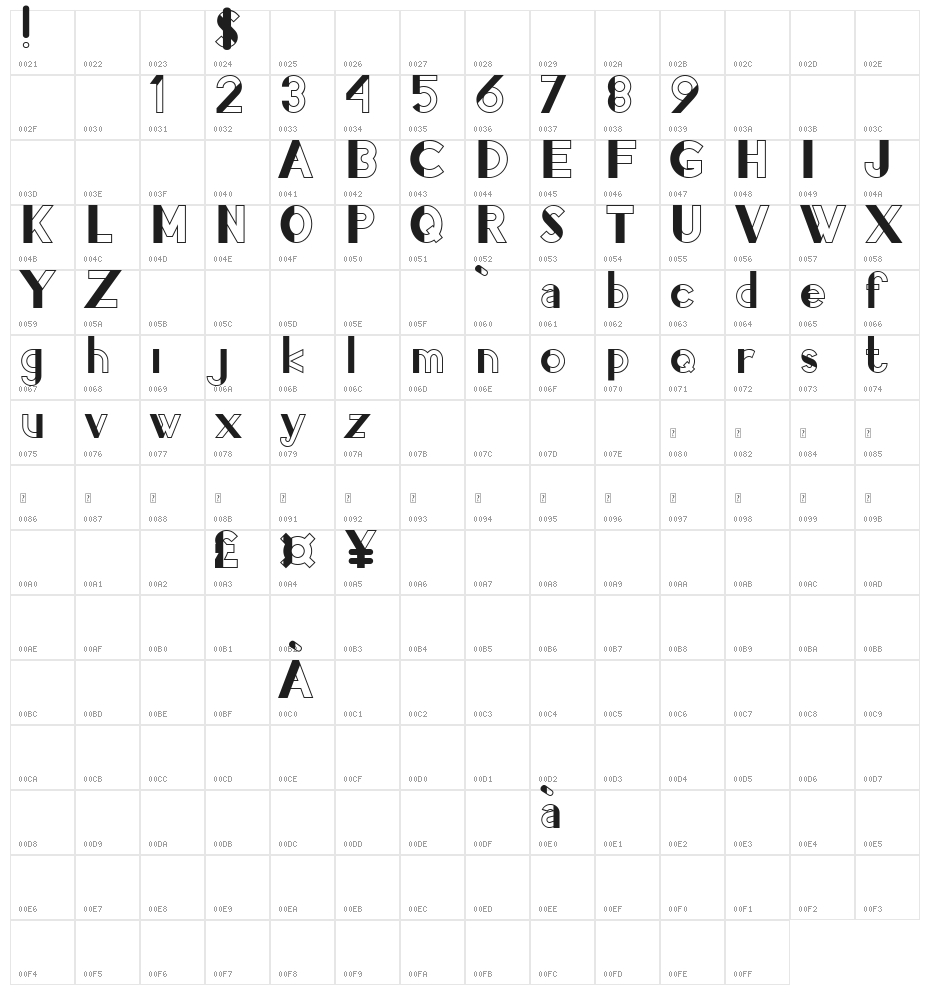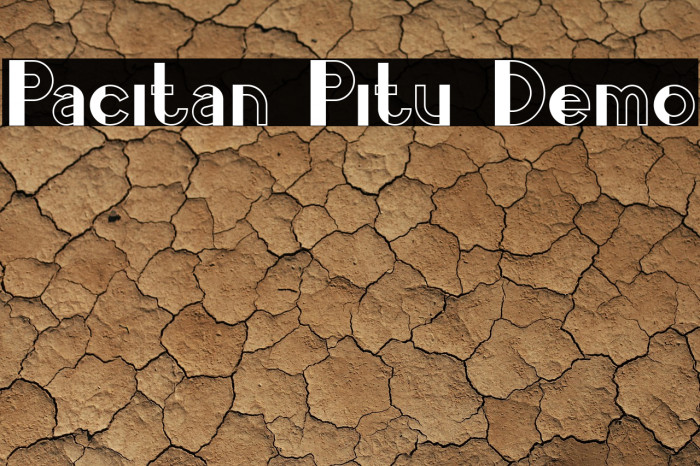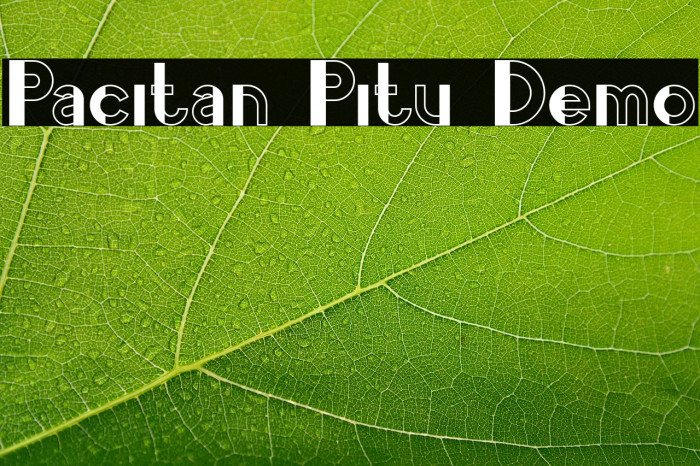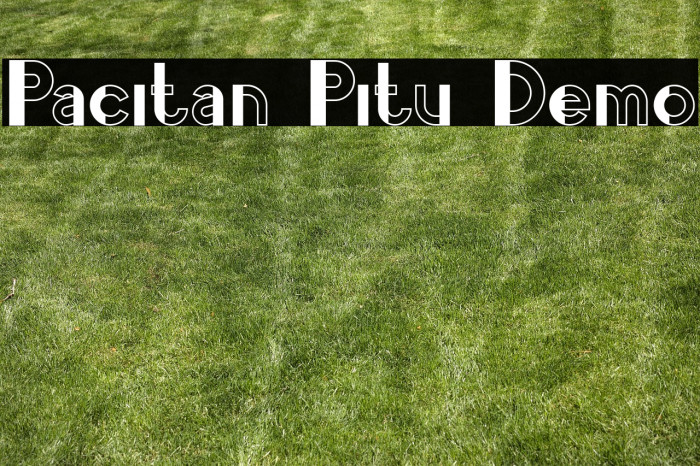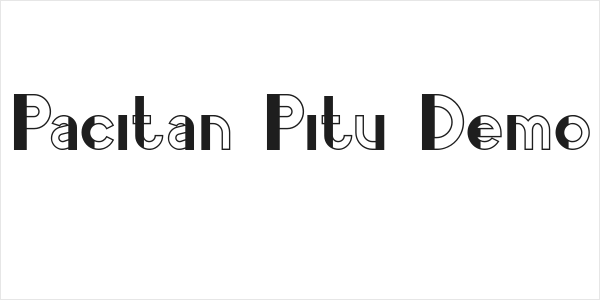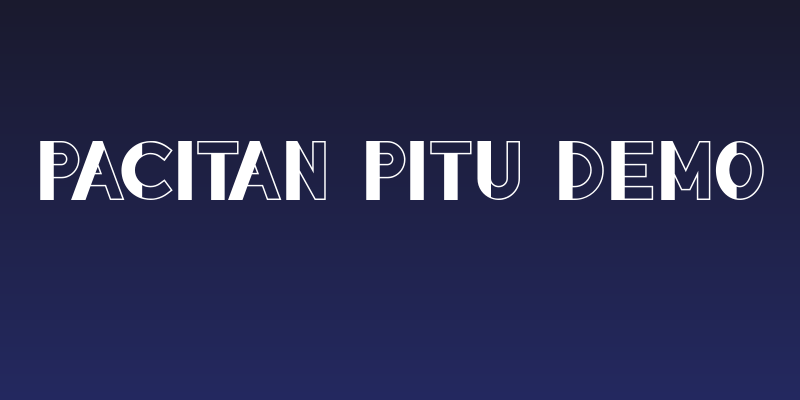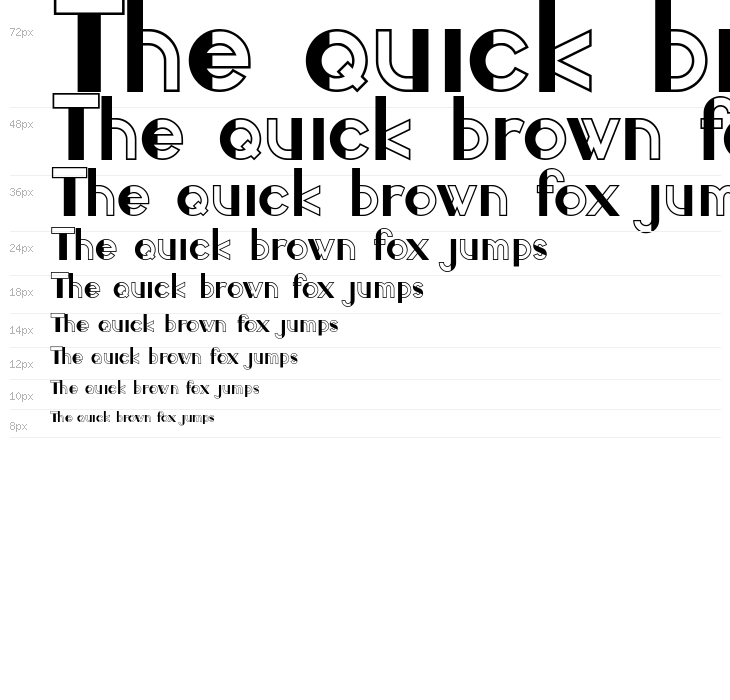
Pacitan Pitu Demo Font
Pacitan Pitu Demo Description
This font features a bold and modern design with a unique dual-tone style. The uppercase and lowercase letters are crafted with a combination of solid and outlined strokes, creating a striking visual contrast. The numbers and special characters follow the same design principle, enhancing the font's cohesive look. The geometric shapes and clean lines give it a contemporary feel, making it suitable for eye-catching designs. The font's distinct style is perfect for projects that require a bold statement and a modern aesthetic.
| Proposed Projects | Ideal for branding, posters, headlines, and modern graphic design projects. |